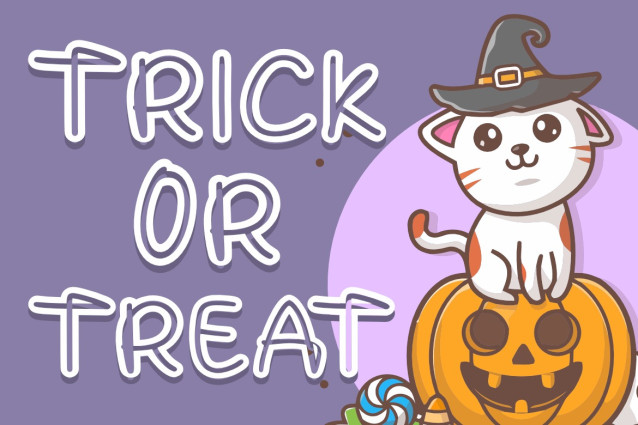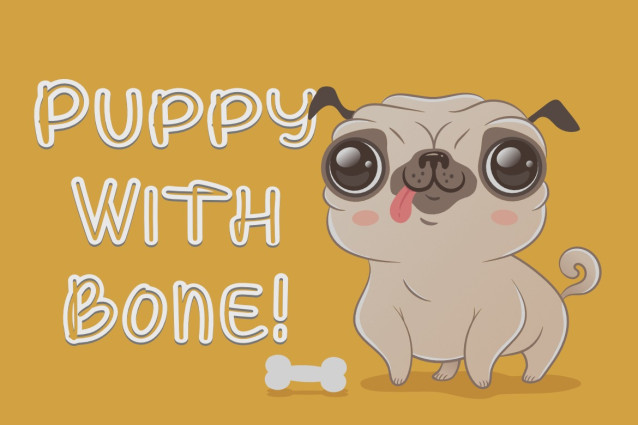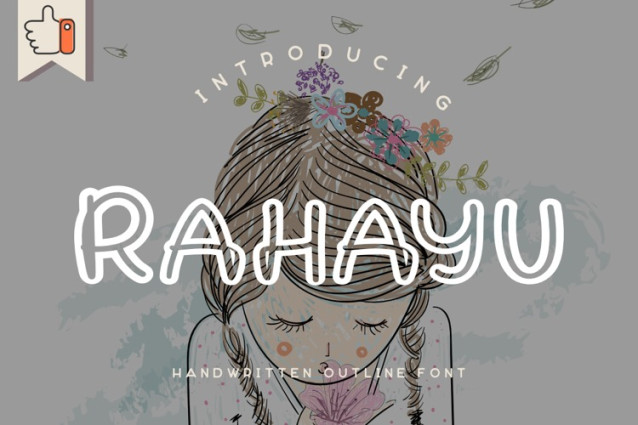
Rahayu Font a charming hand-drawn display font that celebrates creativity and joy. Inspired by free-flowing strokes and a friendly aesthetic, Rahayu is perfect for projects that need a human, approachable feel.